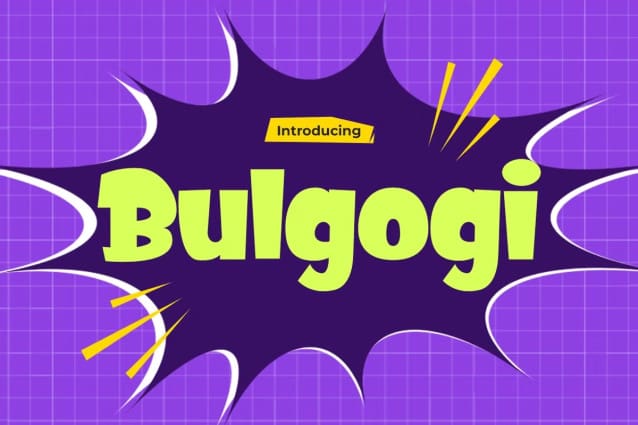
Bulgogi Playful Font
Bulgogi Playful Font a captivating font designed to immerse both kids and gamers in thrilling adventures. Inspired by the vibrant and dynamic landscapes of gaming universes, “Bulgogi” infuses every letter with a sense of wonder and excitement. Whether you’re designing levels for a whimsical platformer or crafting dialogues for adventurous characters, this font adds a playful touch to any gaming project. Its sleek and modern design ensures readability while maintaining an element of fun, making it perfect for titles, UI elements, and in-game text. With “Bulgogi,” you can elevate your game design to new heights and create experiences that ignite the imaginations of players young and old alike.
Get ready to level up your gaming experience with “Bulgogi Playful ,” the ultimate font companion for kid gamers. With its bold and playful aesthetic, “Bulgogi” sets the stage for exciting adventures in pixelated worlds. Whether you’re developing educational games for young learners or creating interactive stories for children, this font adds a dash of whimsy and charm to every aspect of your game design. From catchy title screens to engaging character dialogues, “Bulgogi” ensures that your game captures the hearts and minds of its audience. Let “Bulgogi Playful ” be your secret weapon for creating unforgettable gaming experiences that leave players eager for more.